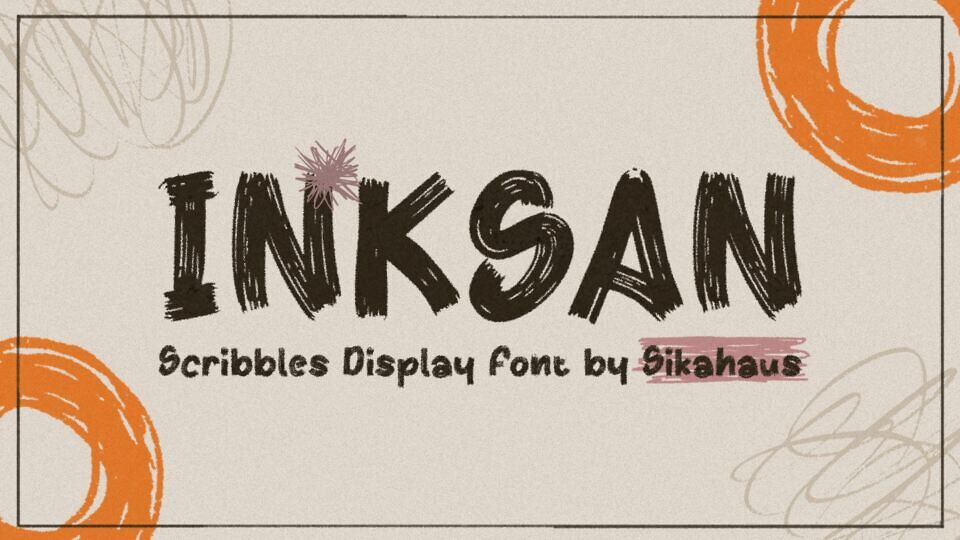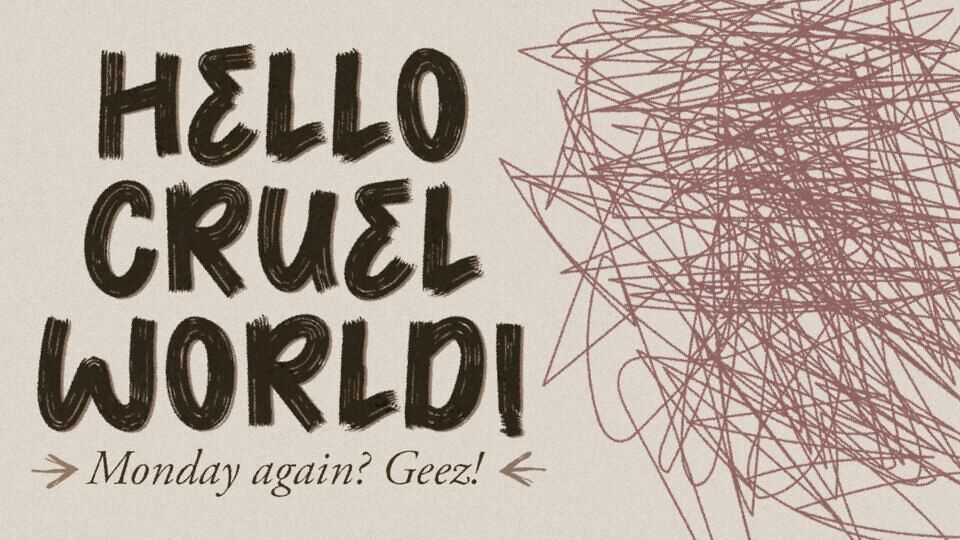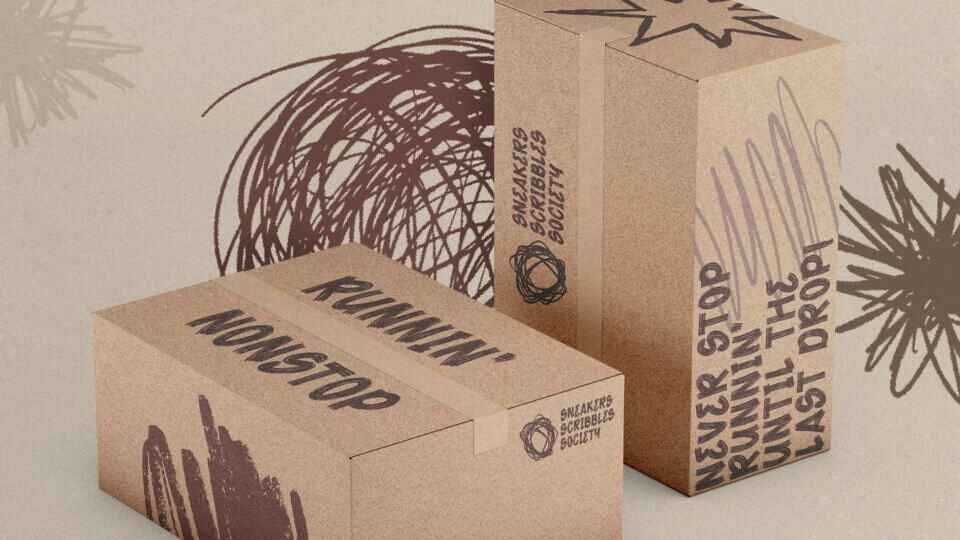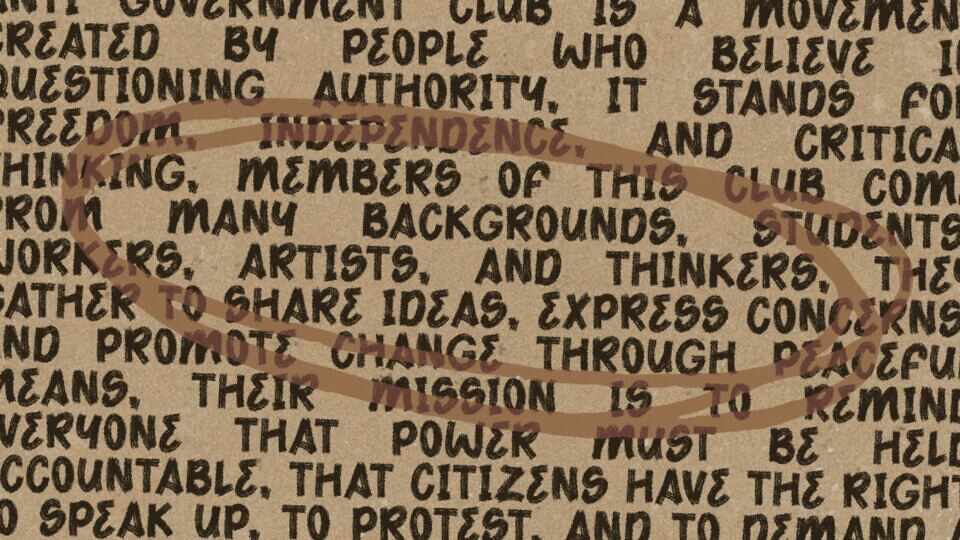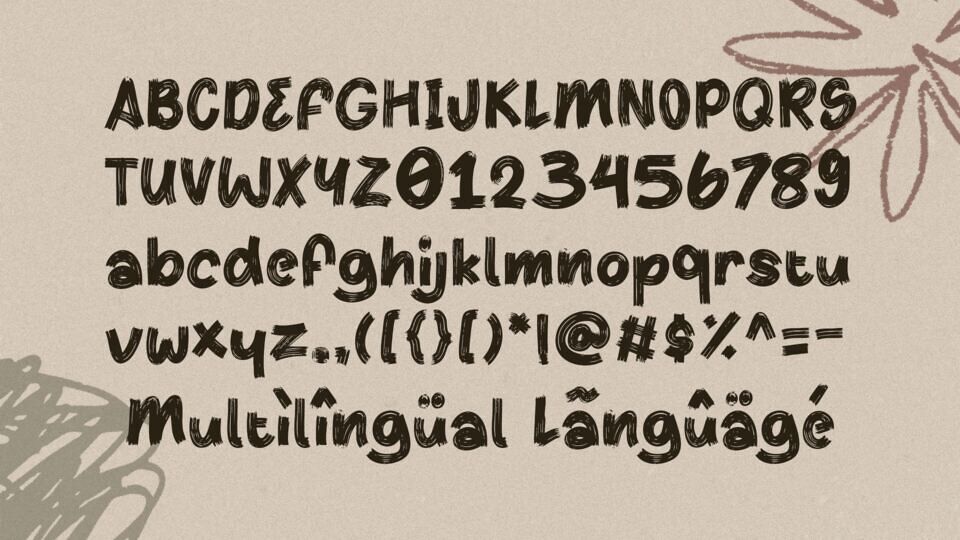
Meet Inksan, your new go-to display font with a bold, scribbled personality! It’s got that messy, hand-drawn charm that’s perfect for designs with an edgy, urban, or rebellious feel.
Whether you’re working on streetwear branding, zines, posters, or digital art, Inksan brings a burst of raw energy to your project.